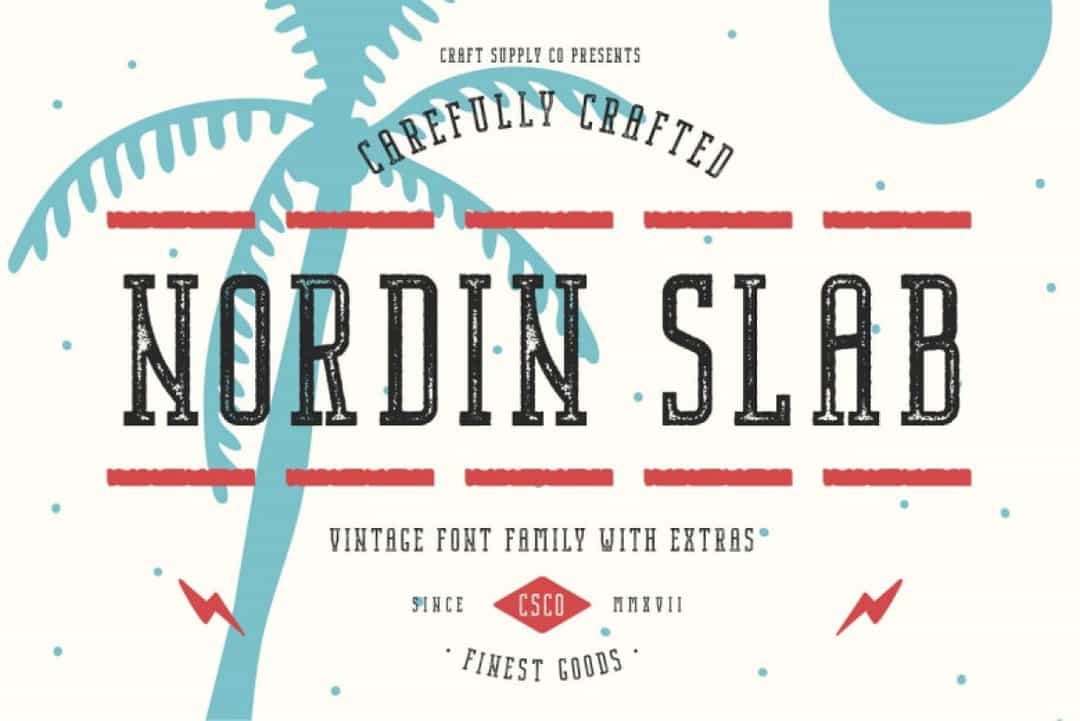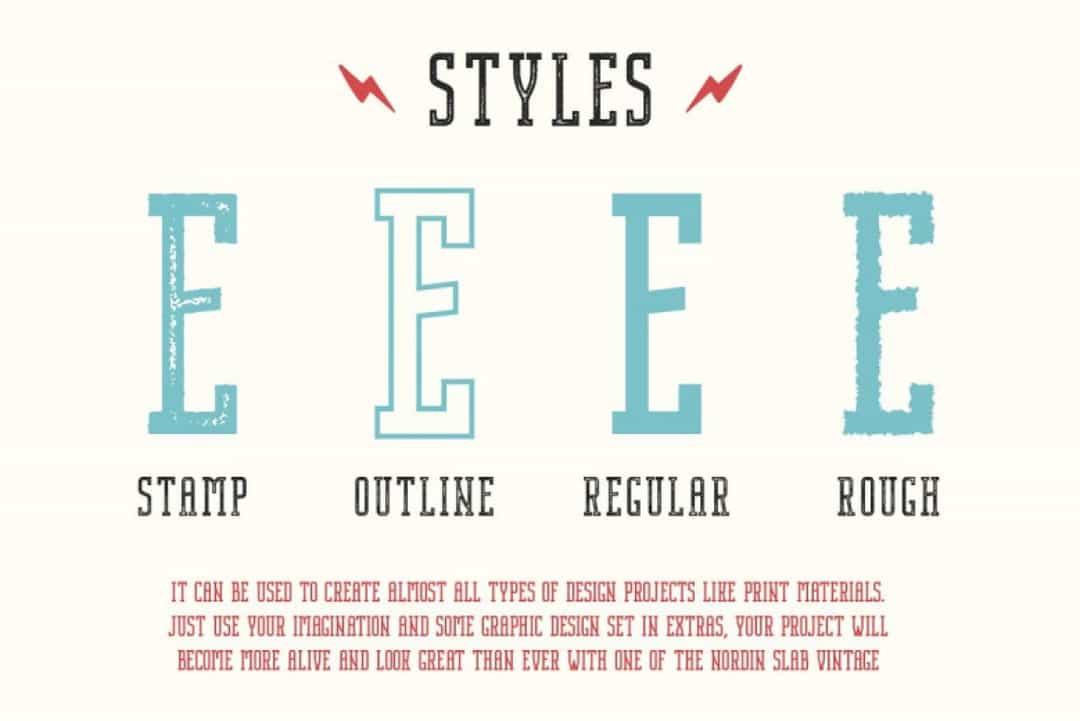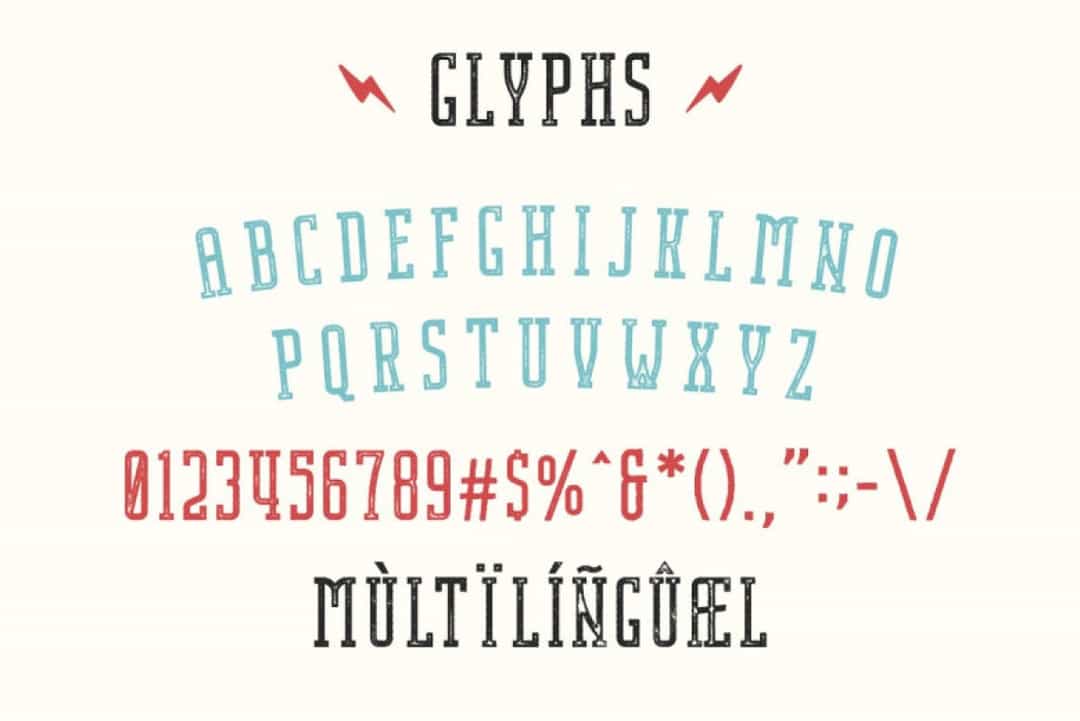
Nordin Slab Vintage Font Family Plus Extras features four styles of fonts that can be used to design virtually all sorts of projects, including printed materials. Simply apply some creativity and set some extra graphics – your designs will never have been so vibrant and stunning before.